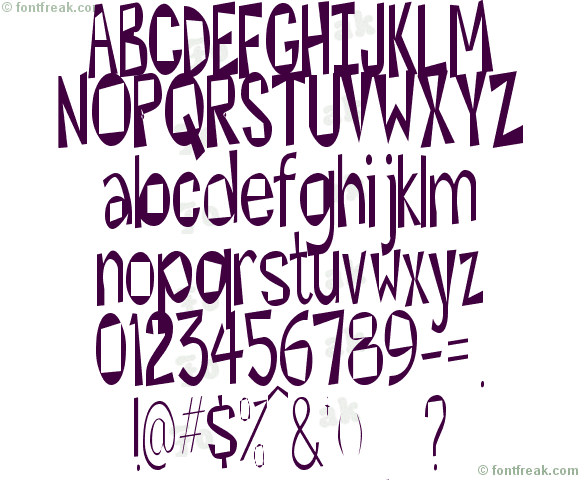
Hesitant
About Hesitant
The Hesitant font by Andy Krahling is a unique handwritten typeface that captures the essence of informal spontaneity. This font, categorized as a display typeface, features a playful yet slightly uncertain character that adds a charming touch to any design project. With its moderate stroke weight and subtle contrast, Hesitant showcases a friendly aesthetic that feels approachable and warm. The spacing is thoughtfully designed, allowing for easy readability while maintaining a relaxed vibe, making it perfect for a variety of applications.
Hesitant is particularly well-suited for creative projects such as wedding invitations, where its casual elegance can set the tone for a personal celebration. It also shines in movie posters, especially in genres that embrace a quirky or indie style, lending a sense of authenticity and character. Restaurant menus can benefit from the font's inviting qualities, enticing patrons with a blend of warmth and creativity. Additionally, it serves as an excellent choice for social media graphics, appealing to content creators looking to capture a casual yet stylish aesthetic.
The target audience for the Hesitant font includes graphic designers seeking to infuse their work with a touch of personality, small business owners aiming to create memorable branding, and content creators who want to engage their audience through visually appealing typography.